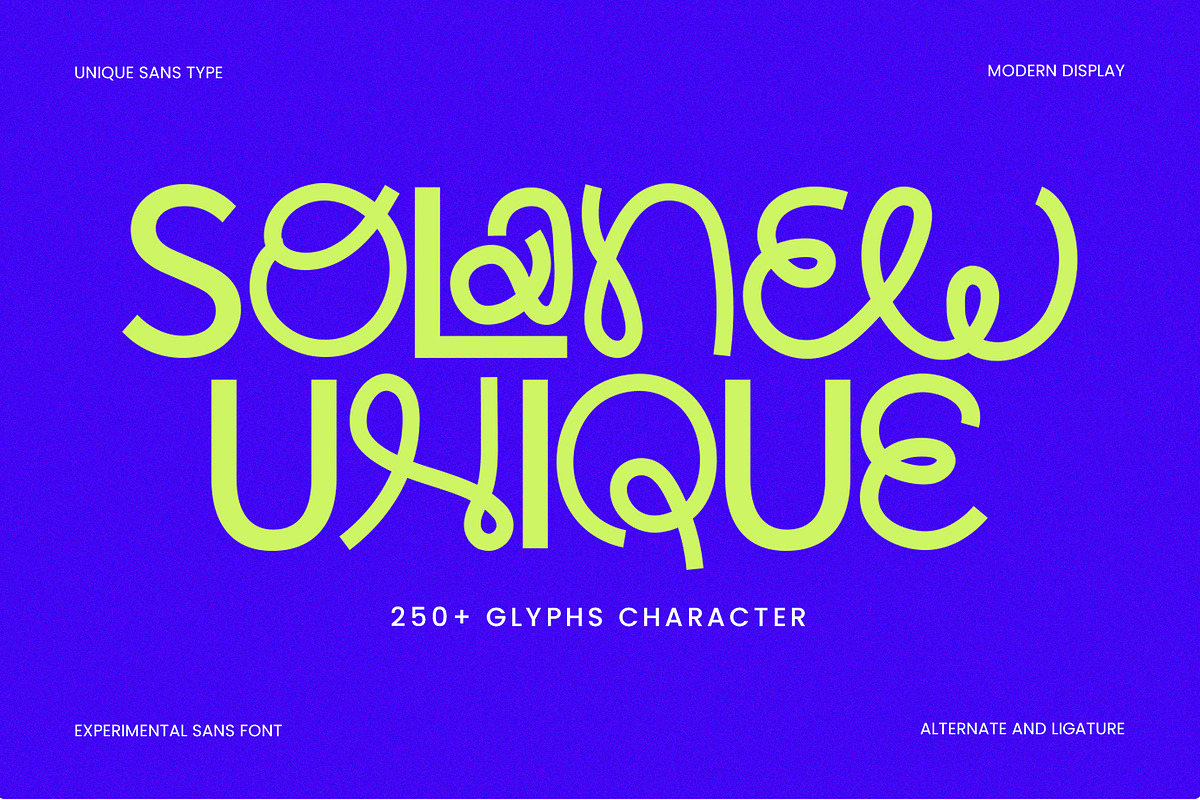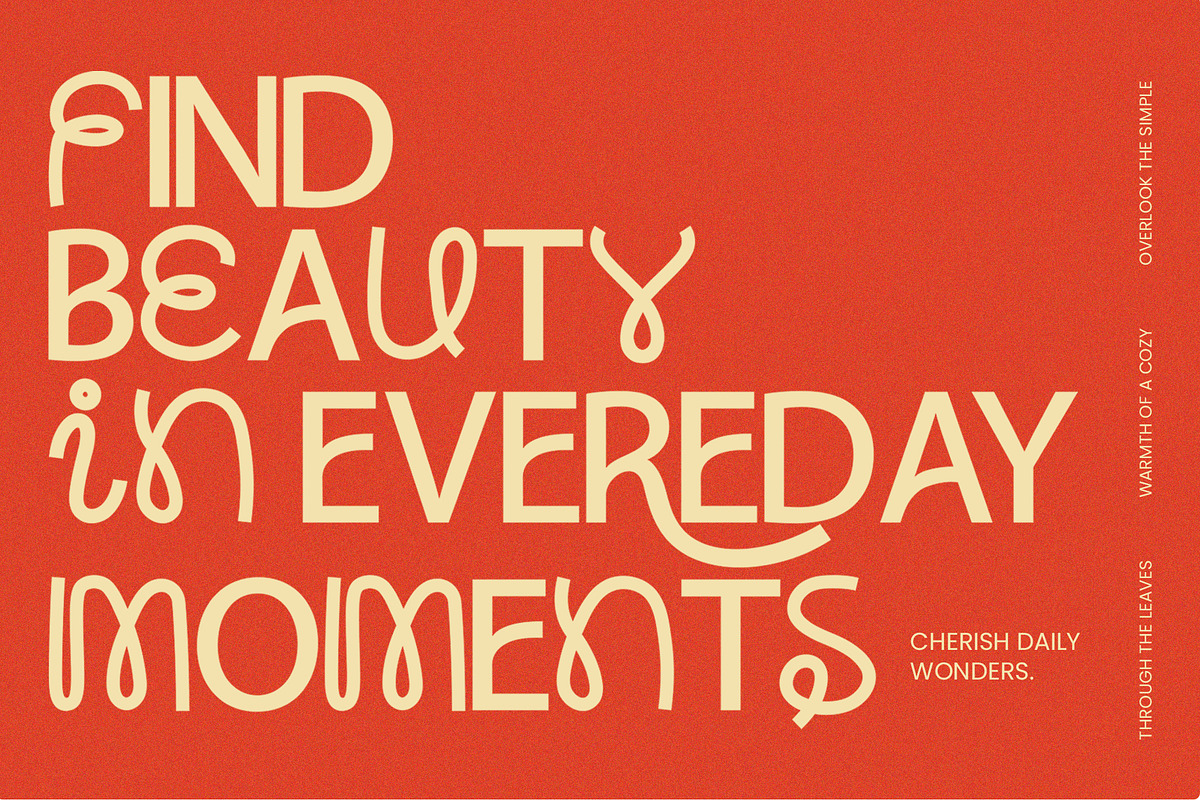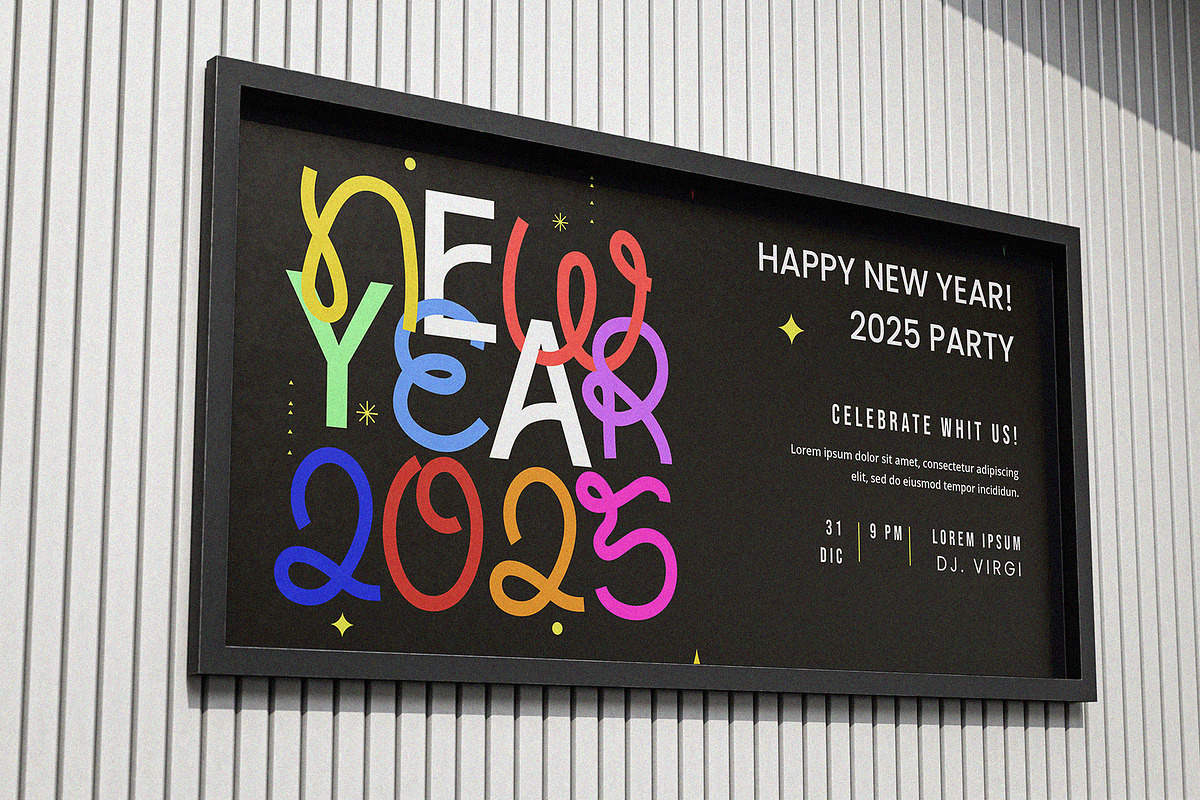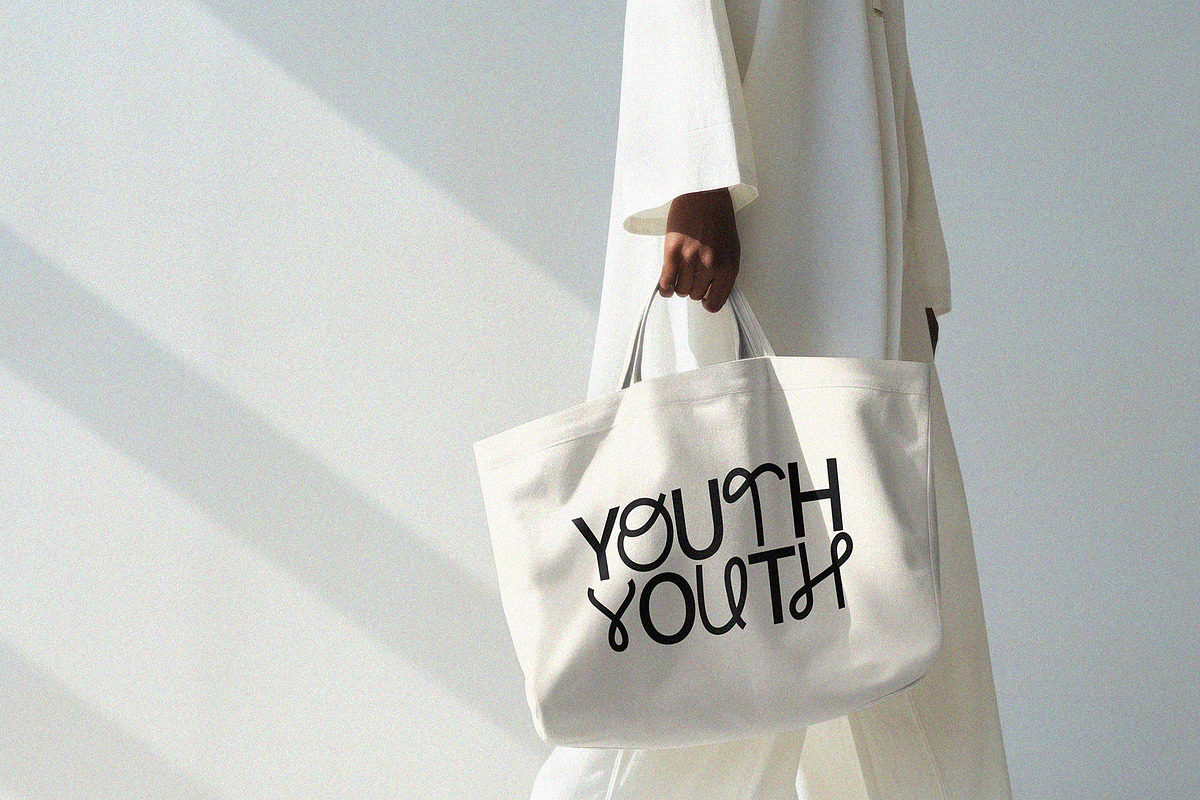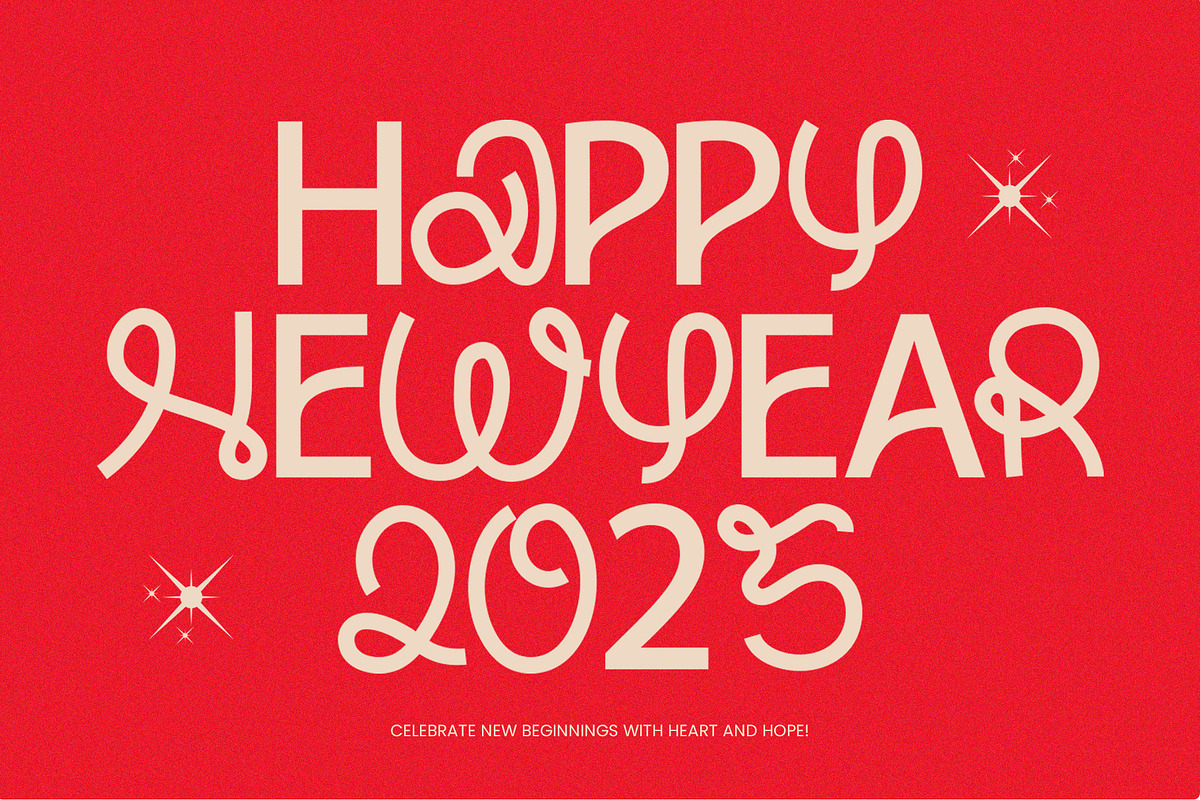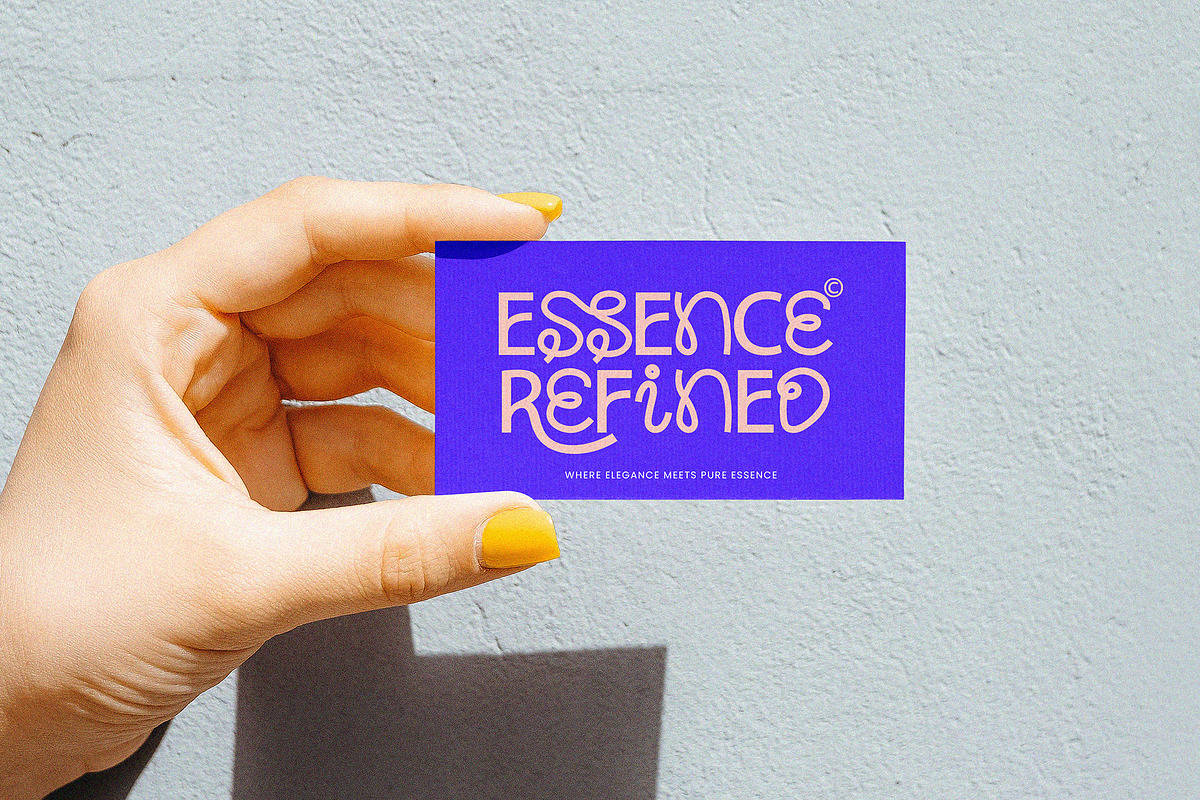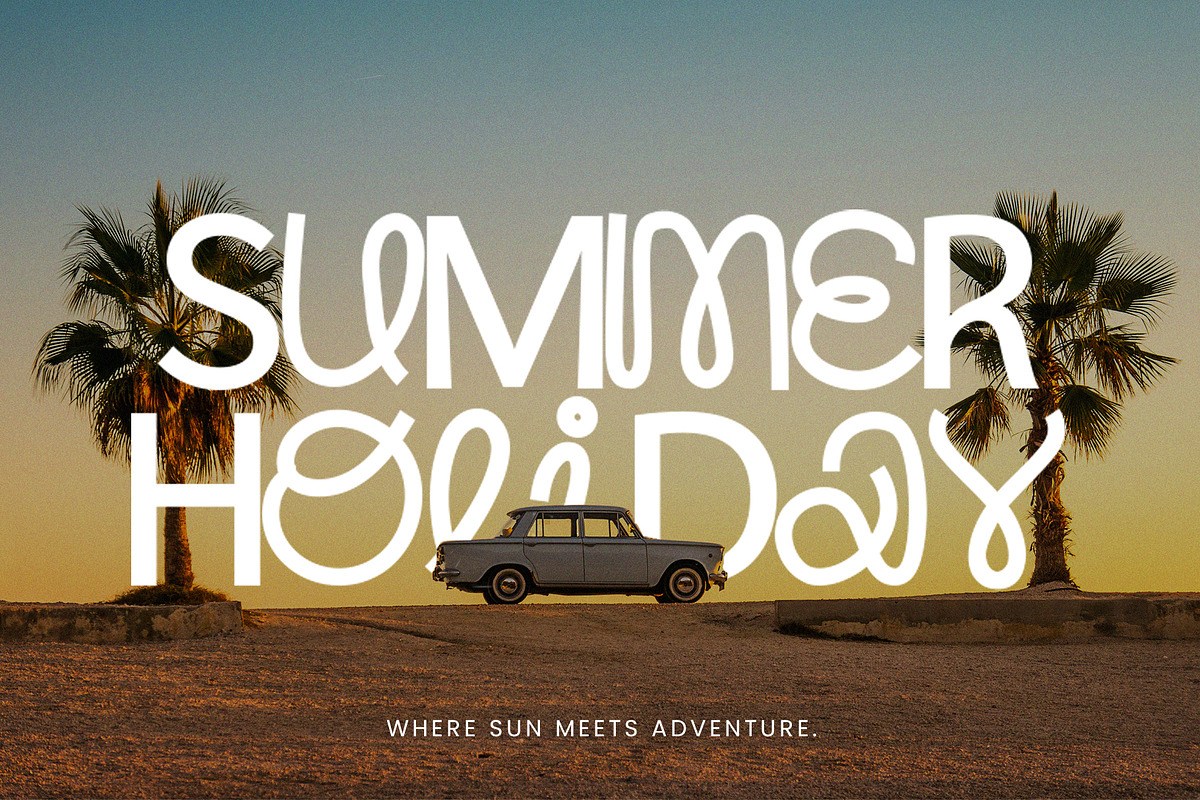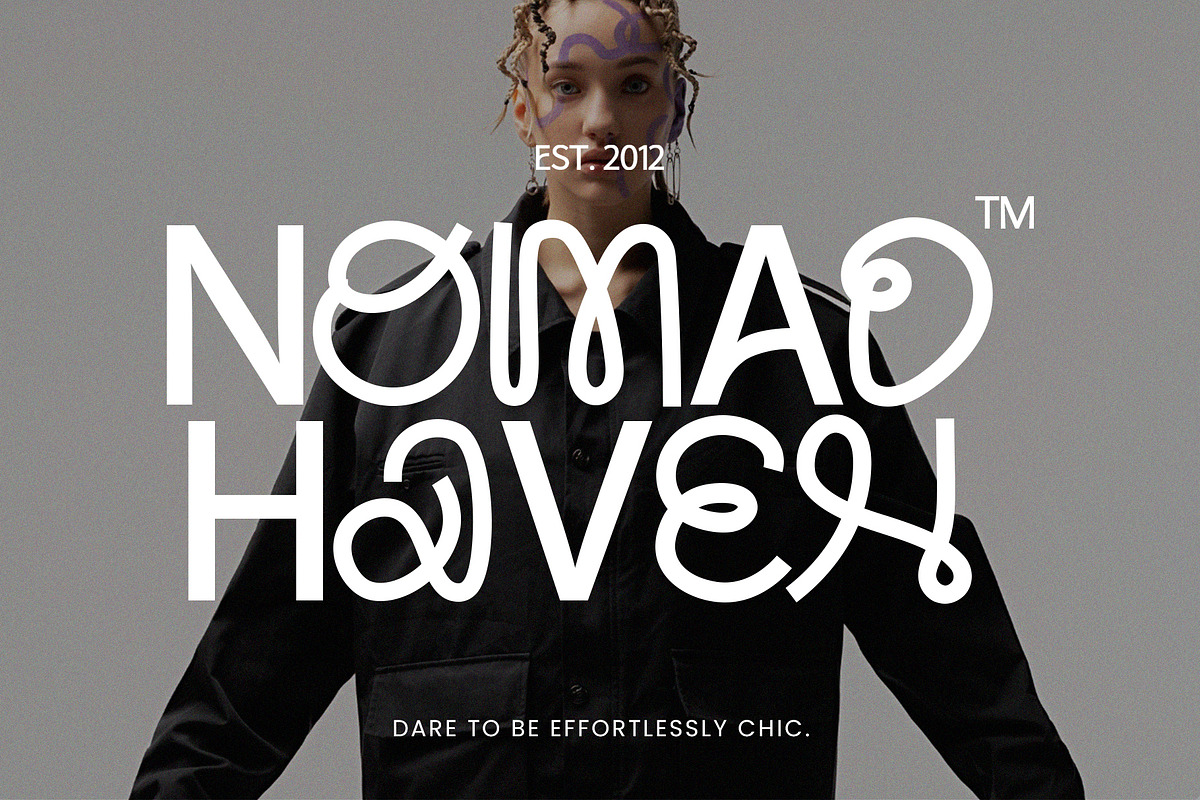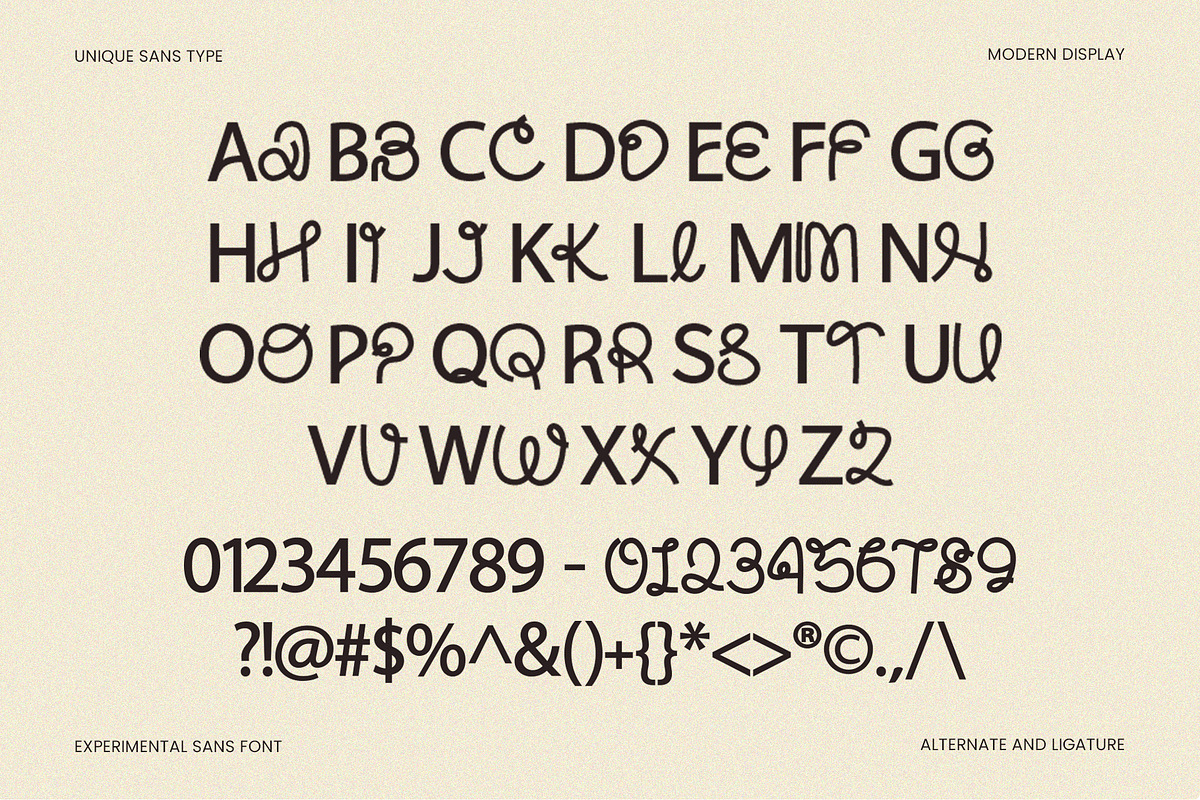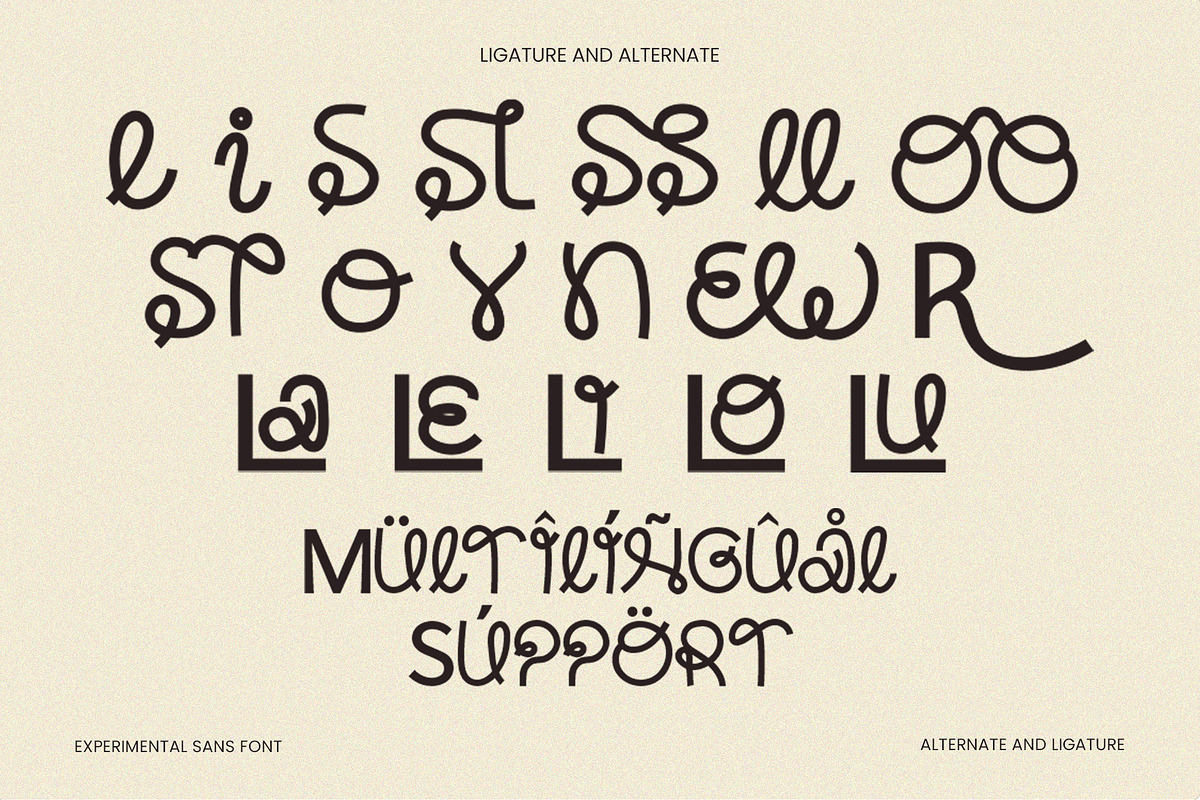
Solanew - Sans Handwritten Ligature
Unleash high-impact visual appeal with Solanew Unique, an experimental display font designed to make your branding unforgettable. This trending typeface features striking fluid curves, unique alternates, and extensive ligatures ideal for dynamic logos, modern posters, and eye-catching product packaging. The package includes over 250+ glyphs, ensuring maximum creative versatility and commercial readiness for your next big project.
- Uppercase & Lowercase Characters: Fully designed for a complete typographic experience
- Numerals & Punctuation: All the numbers and punctuation marks you need for any design task
- Multilingual Support: Includes characters for multiple languages, ensuring global usability